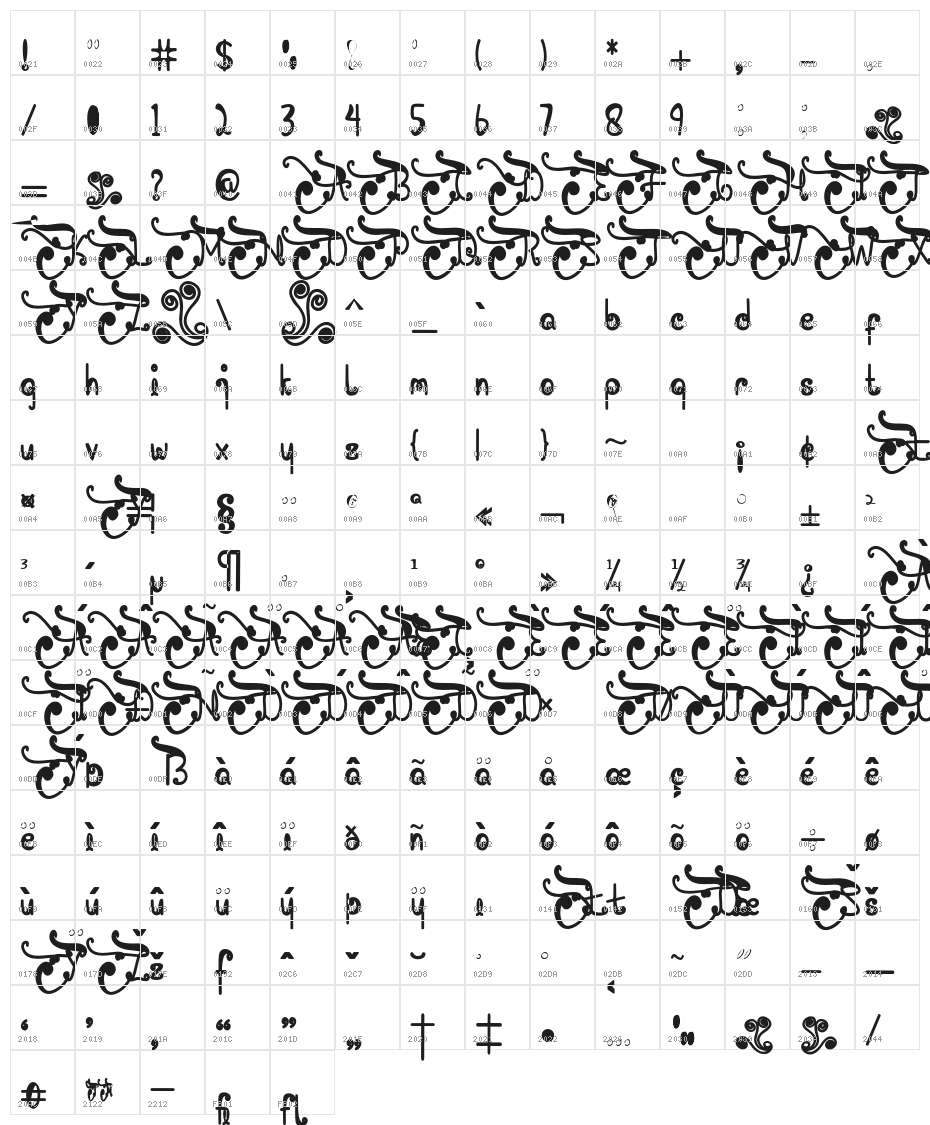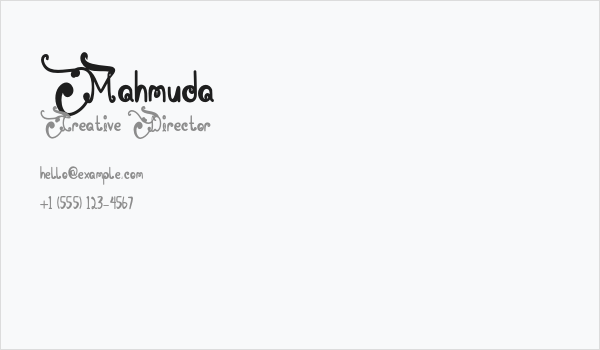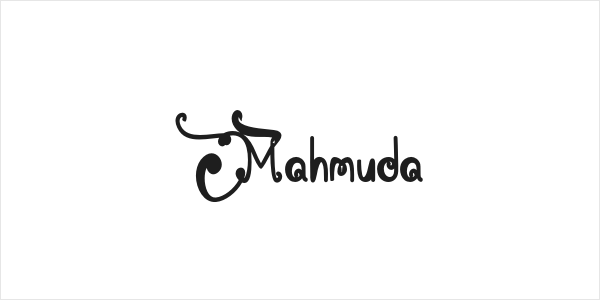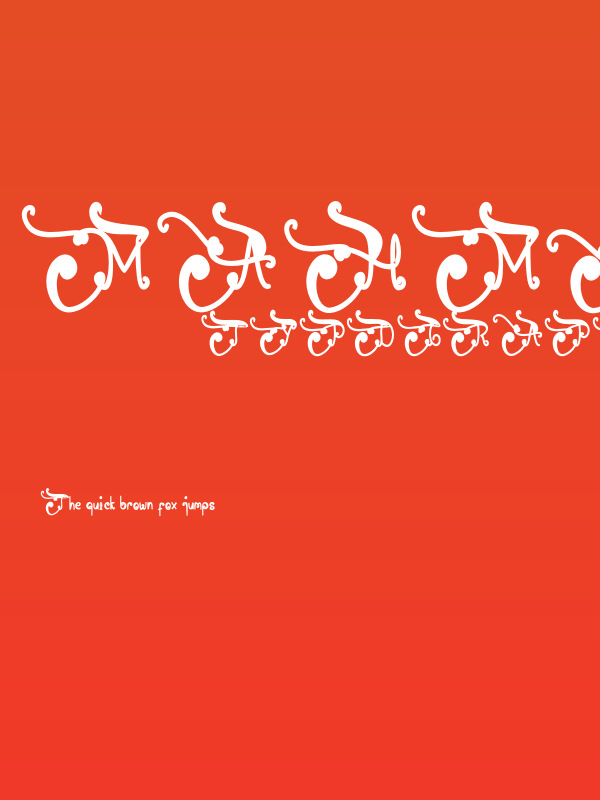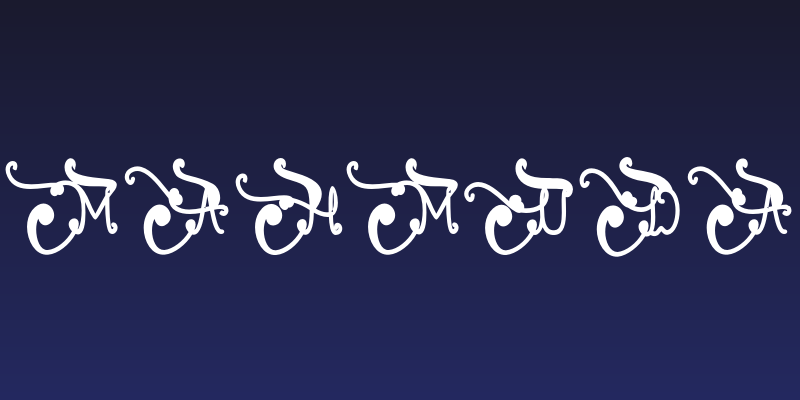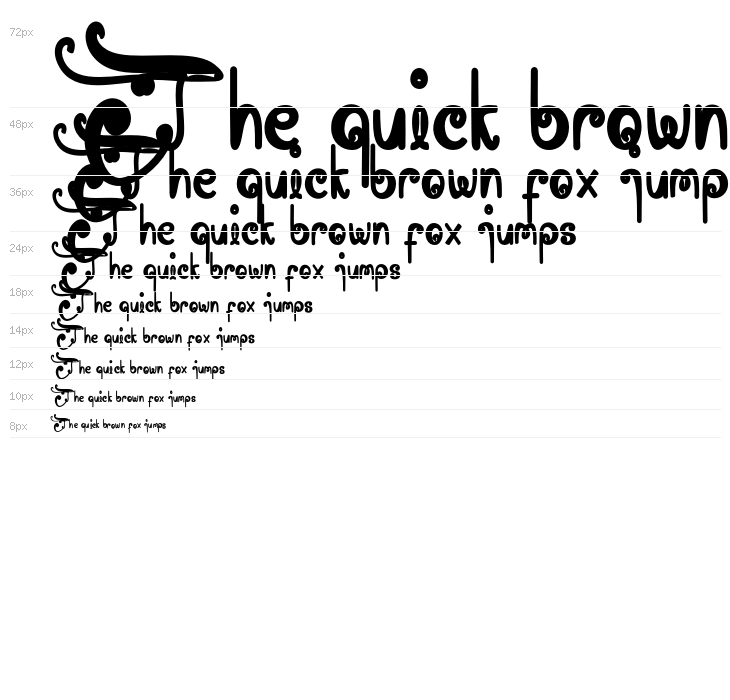
Mahmuda Font
Mahmuda Description
This font features a playful and whimsical design with a unique blend of curves and loops. The uppercase letters are adorned with intricate swirls, giving them an ornamental appearance. The lowercase letters maintain a more straightforward, yet still playful style, with rounded edges and a slightly irregular baseline. Numbers are bold and slightly exaggerated in height, maintaining the font's overall quirky aesthetic. Special characters are creatively integrated, matching the decorative style of the uppercase letters. This font is ideal for projects that require a touch of fun and creativity.
| Proposed Projects | Perfect for children's books, playful branding, creative posters, and whimsical invitations. |